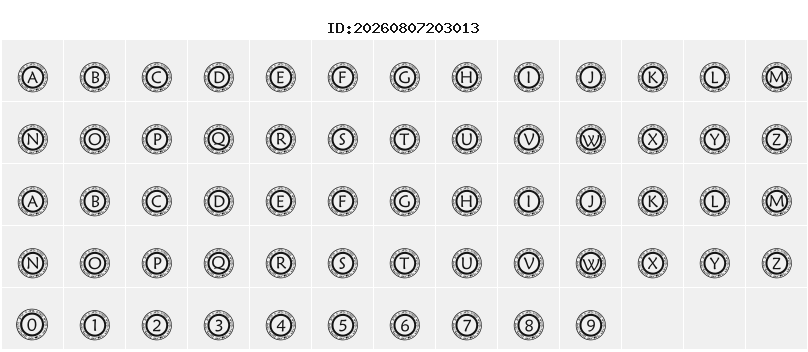
pf_scircle1 Preview
• Font Name: pf_scircle1
About pf_scircle1.ttf
pf_scircle1.ttf is a modern, elegant sans-serif font designed for ultimate readability and visual harmony. Perfect for branding, headlines, web design, and print materials.